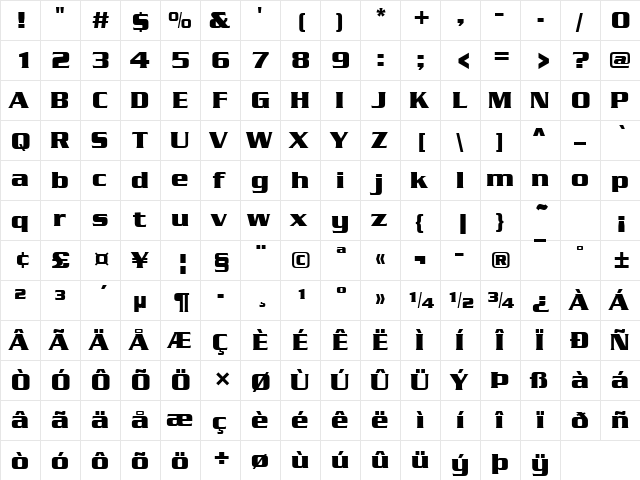
Serpentine Becker Regular
Design Context for Serpentine Becker Typeface
Serpentine Becker is a composed and adaptable typeface that performs quietly and consistently across a wide range of design contexts.